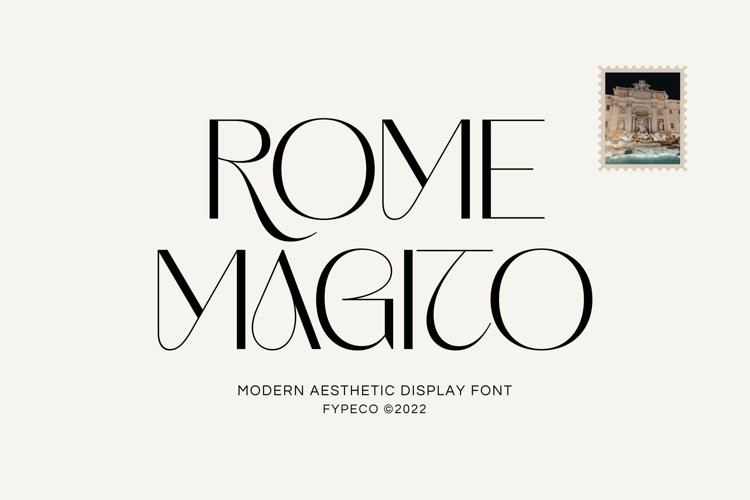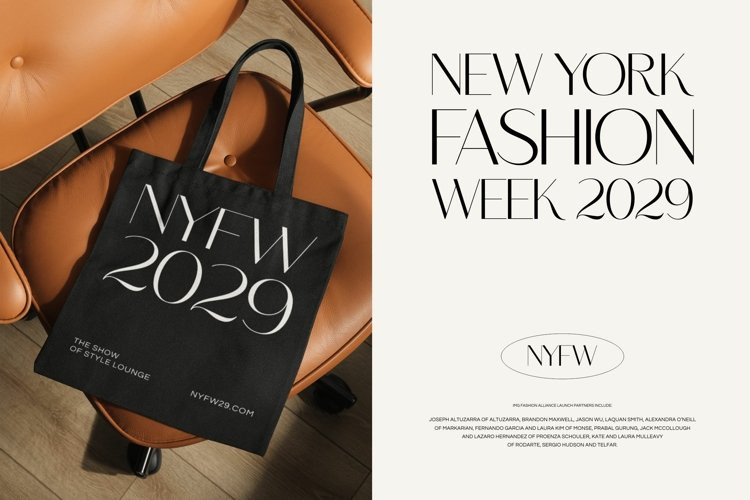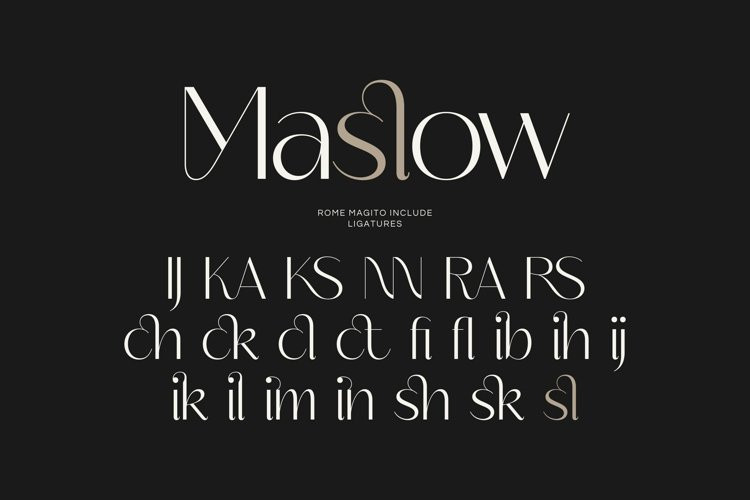
Rome Magito Font
Rome Magito FontRome Magito is aesthetic and modern display font with alternatives and ligatures. Perfect for who needing a touch of elegancy, stylish, classy, beautiful thin, and modernity for their design.